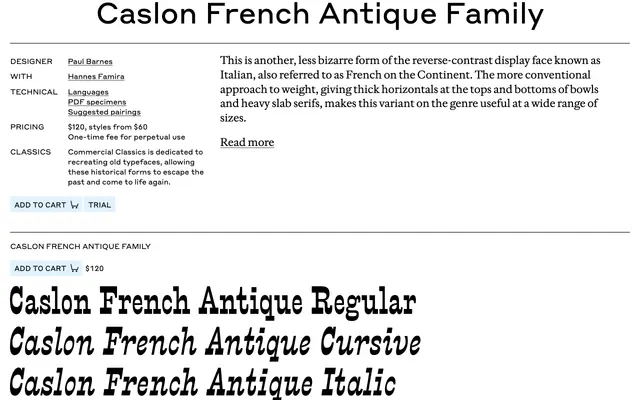
Caslon French Antique
Commercial Type · Paul Barnes · 2018
A tamer reverse-contrast display face within the Caslon programme, with thick horizontals and heavy slab serifs that work across sizes.
A reverse-contrast display face by Paul Barnes that takes the historic Italian, known as French on the Continent, and reins in the more bizarre extremes of the genre. The thick horizontals at the tops and bottoms of bowls and the heavy slab serifs give it more conventional weight distribution, which keeps it useful at a wide range of sizes for posters, packaging, wayfinding and editorial display work rooted in the nineteenth century.
Commercial Type describe Caslon French Antique as a less bizarre form of the reverse-contrast display face known as Italian, also referred to as French on the Continent, with thick horizontals at the tops and bottoms of bowls and heavy slab serifs.